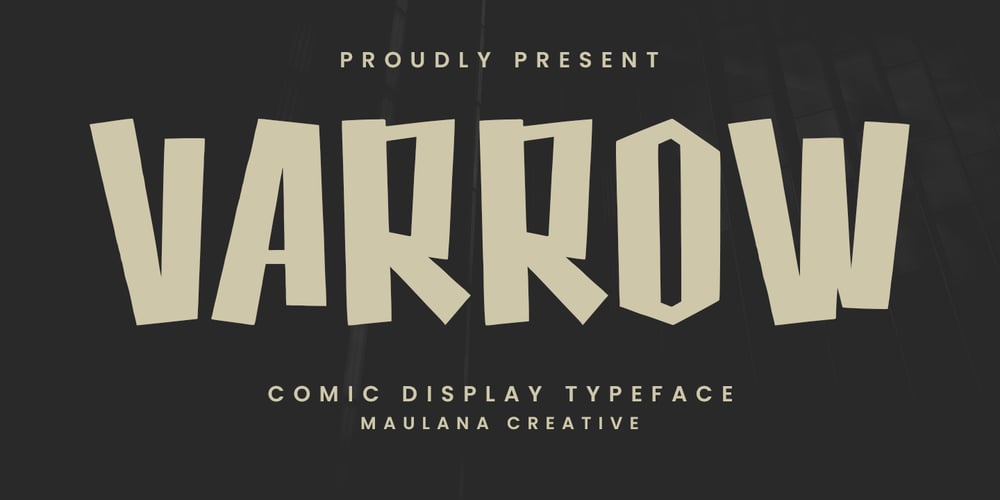
Varrow Font Family was designed by Gilang Maulana and published by Maulana Creative. Varrow contains 1 styles and family package options. Varrow comic display font, bold stroke, fun character with a bit of ligatures. To give you an extra creative work. Varrow display font support multilingual more than 100+ language. This font is good for logo design, Social media, Movie Titles, Books Titles, a short text even a long text letter and good for your secondary text font with script or serif. Make a stunning work with Varrow display font.–Uppercase